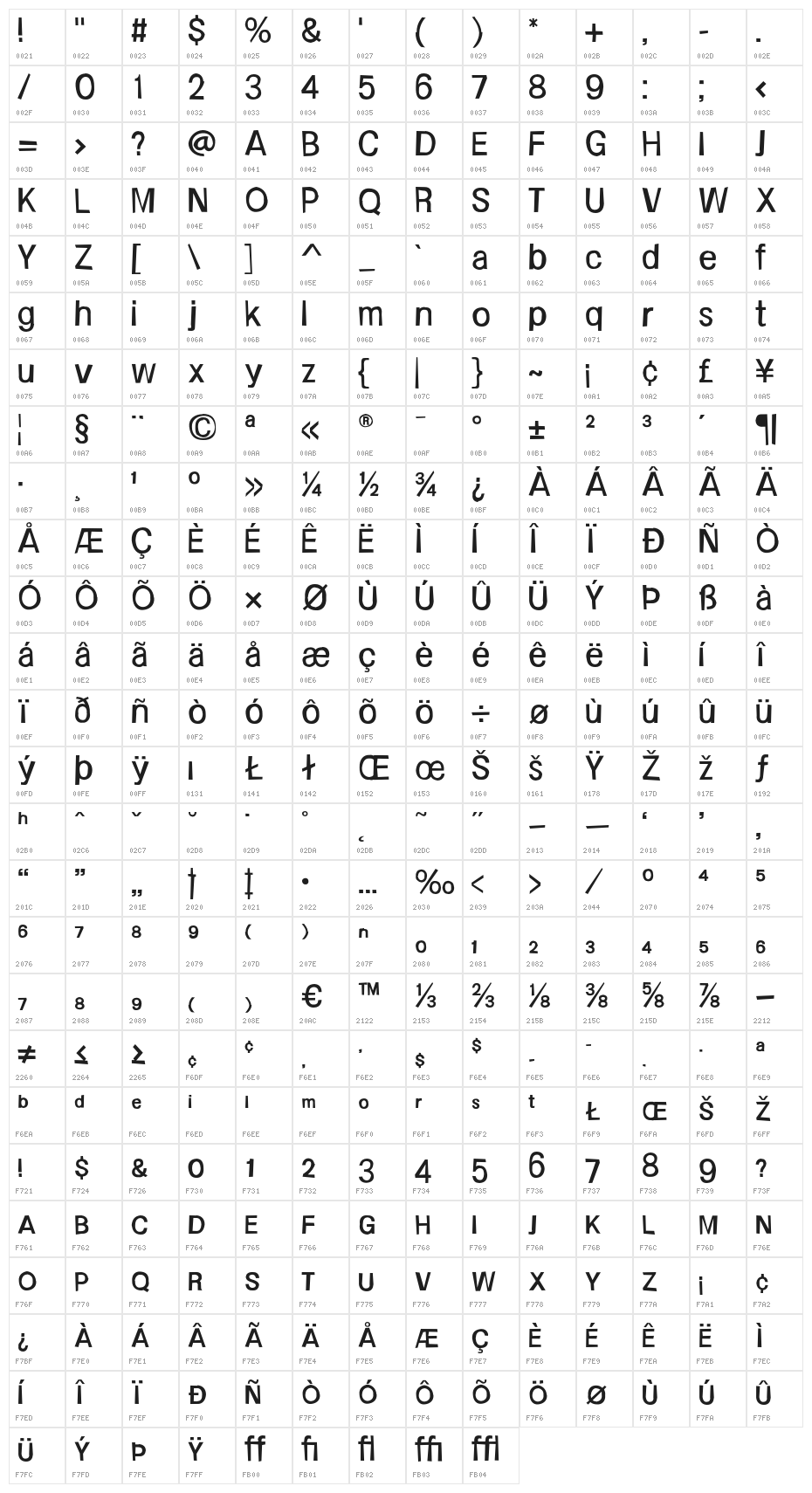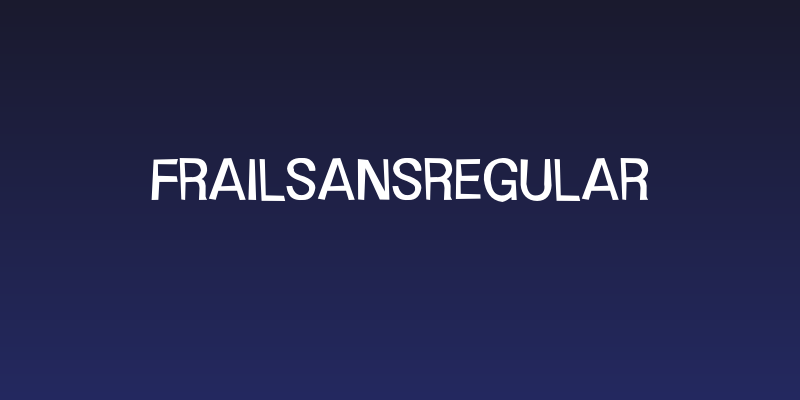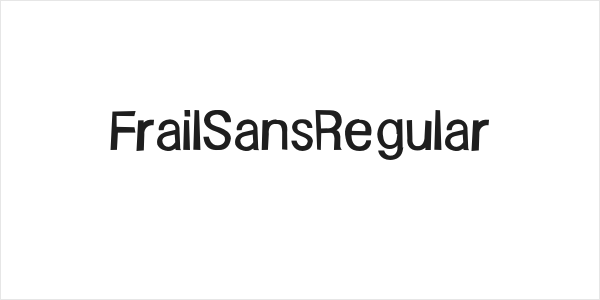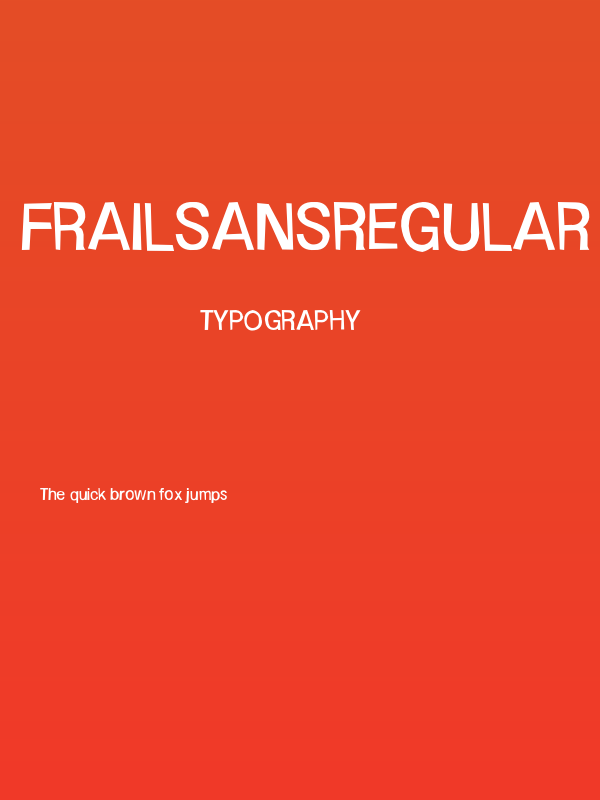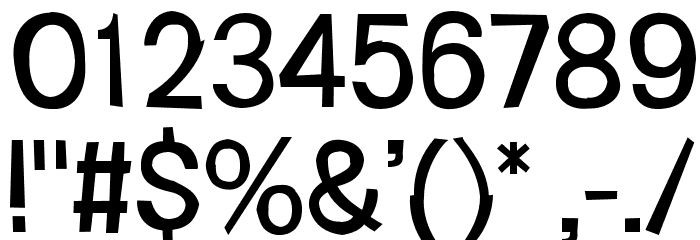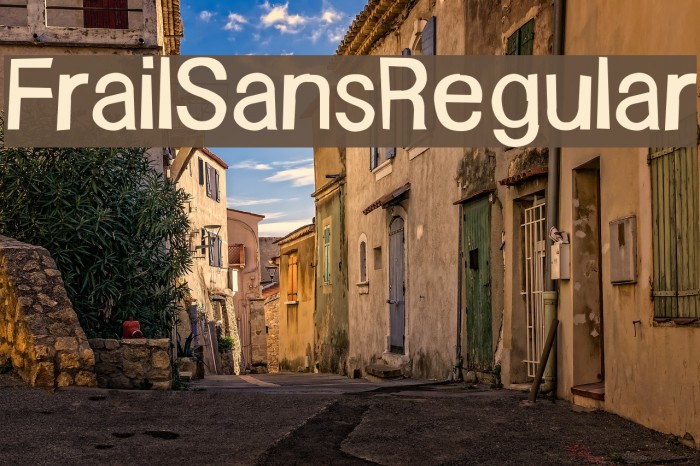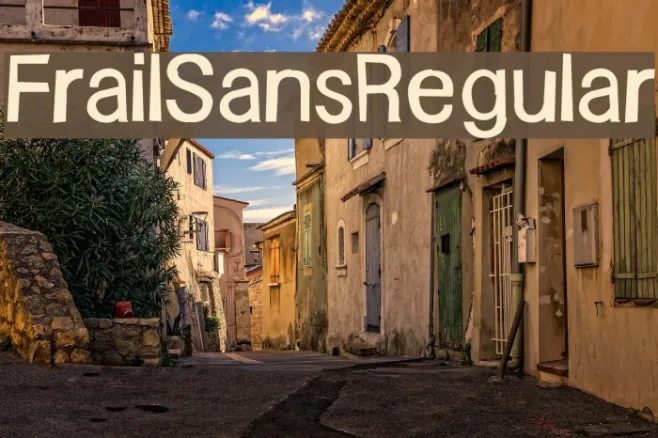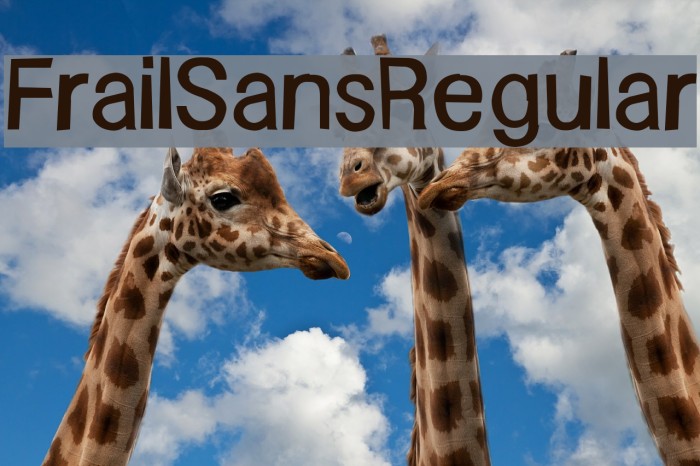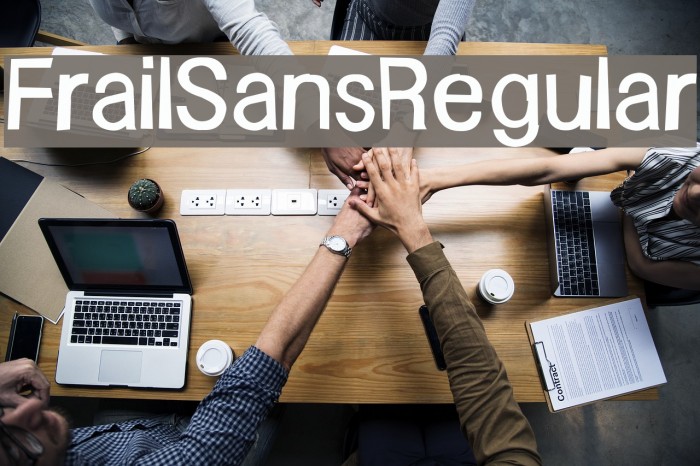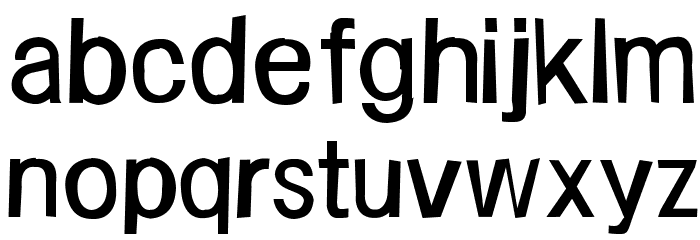
FrailSansRegular Font
FrailSansRegular Description
This typeface features a clean and modern design with a sans-serif style. The characters are slightly condensed, giving it a compact appearance while maintaining readability. The strokes are consistent in weight, providing a uniform look across all letters and numbers. The uppercase letters are bold and assertive, while the lowercase letters maintain a friendly and approachable feel. The numerals are clear and distinct, making them easy to read. Special characters are well-integrated, ensuring versatility in various design contexts. Overall, this font balances professionalism with a touch of contemporary flair.
| Width | Condensed |
| Use Case | Headlines, Body text, Logos |
| Proposed Projects | Ideal for branding, advertising, web design, and editorial projects where a modern and clean look is desired. |